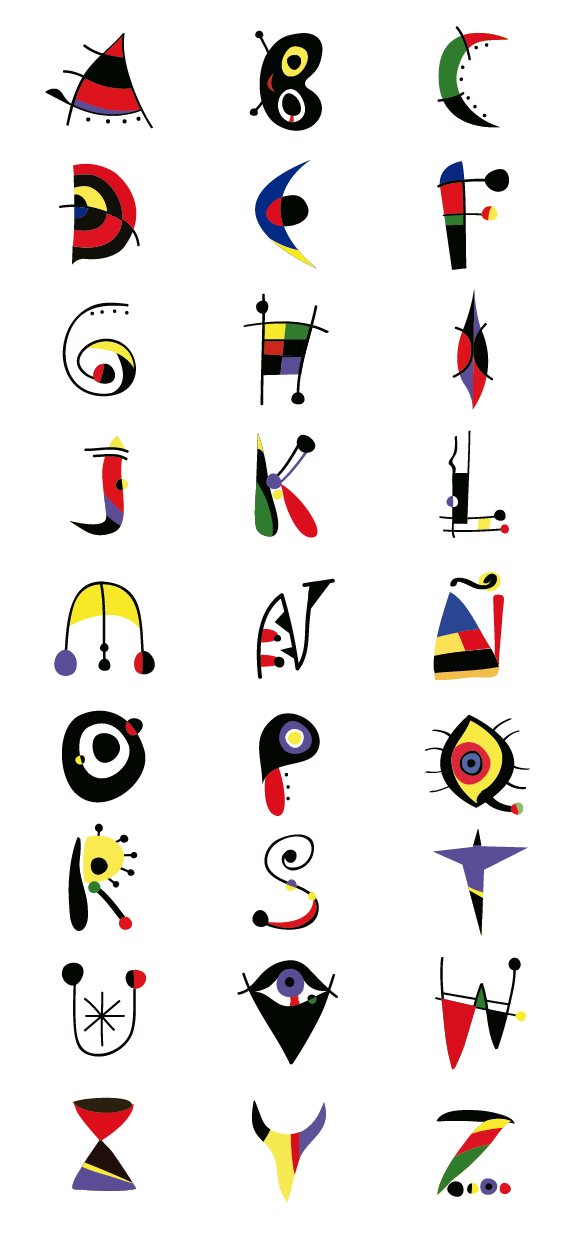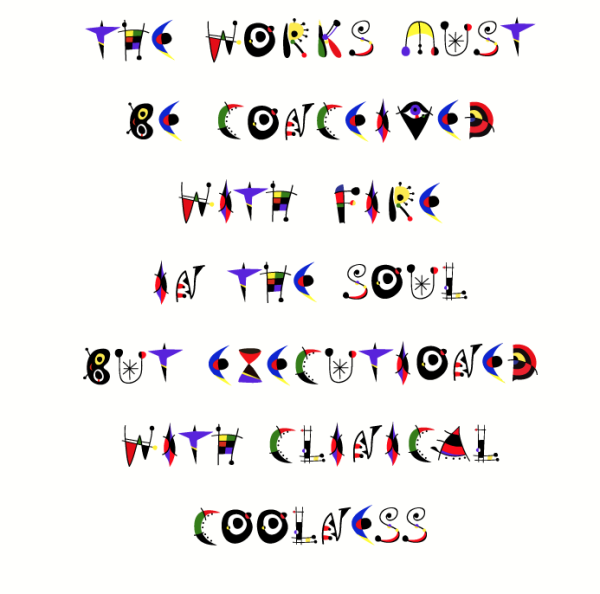
MIRO
Joan Miró i Ferrà was a Catalan, Spanish painter, sculptor, and ceramicist born in Barcelona.
His work has been interpreted as Surrealism, a sandbox for the subconscious mind, a re-creation of the childlike.
This is my type inspired in his art.